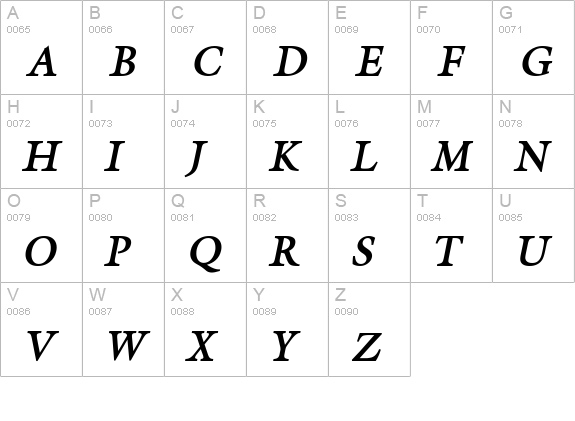
Galant BoldItalic is a striking and captivating font that exudes confidence and elegance. With its unique blend of boldness and slanted italics, this font is perfect for making a bold statement. The Galant BoldItalic font is freely available to download at FontsMarket.com. This means that you can add a touch of sophistication to your designs without any cost. Whether you're creating a logo, designing a website, or crafting a stunning presentation, Galant BoldItalic will elevate your work to new heights. The strong and distinctive letterforms of Galant BoldItalic will command attention and leave a lasting impression on your audience. Its bold weight adds a sense of authority and professionalism, while the italic slant adds a touch of flair and creativity. This font is incredibly versatile and can be used in a wide range of design projects. Its legibility makes it ideal for headlines, subheadings, and body text alike. Whether you're designing for print or digital, Galant BoldItalic will deliver exceptional results. With Galant BoldItalic, you have the freedom to express your creativity and create stunning designs that stand out from the crowd. Its clean and modern aesthetic makes it a timeless choice that will never go out of style. Download Galant BoldItalic for free at FontsMarket.com and unlock the potential to create visually stunning designs. Don't miss out on this incredible opportunity to enhance your work with a font that embodies boldness, elegance, and creativity.